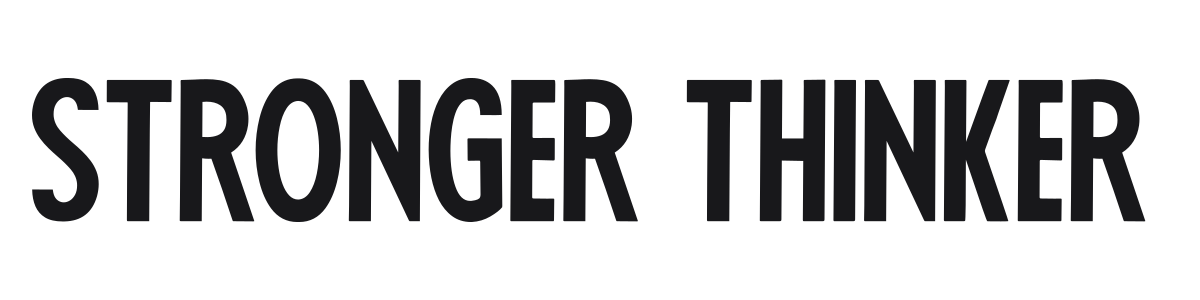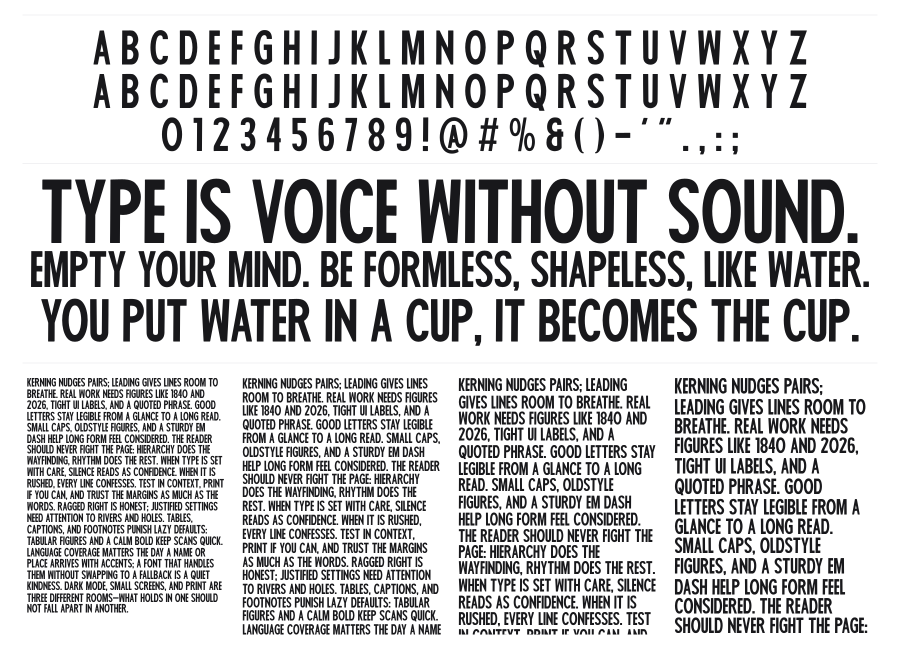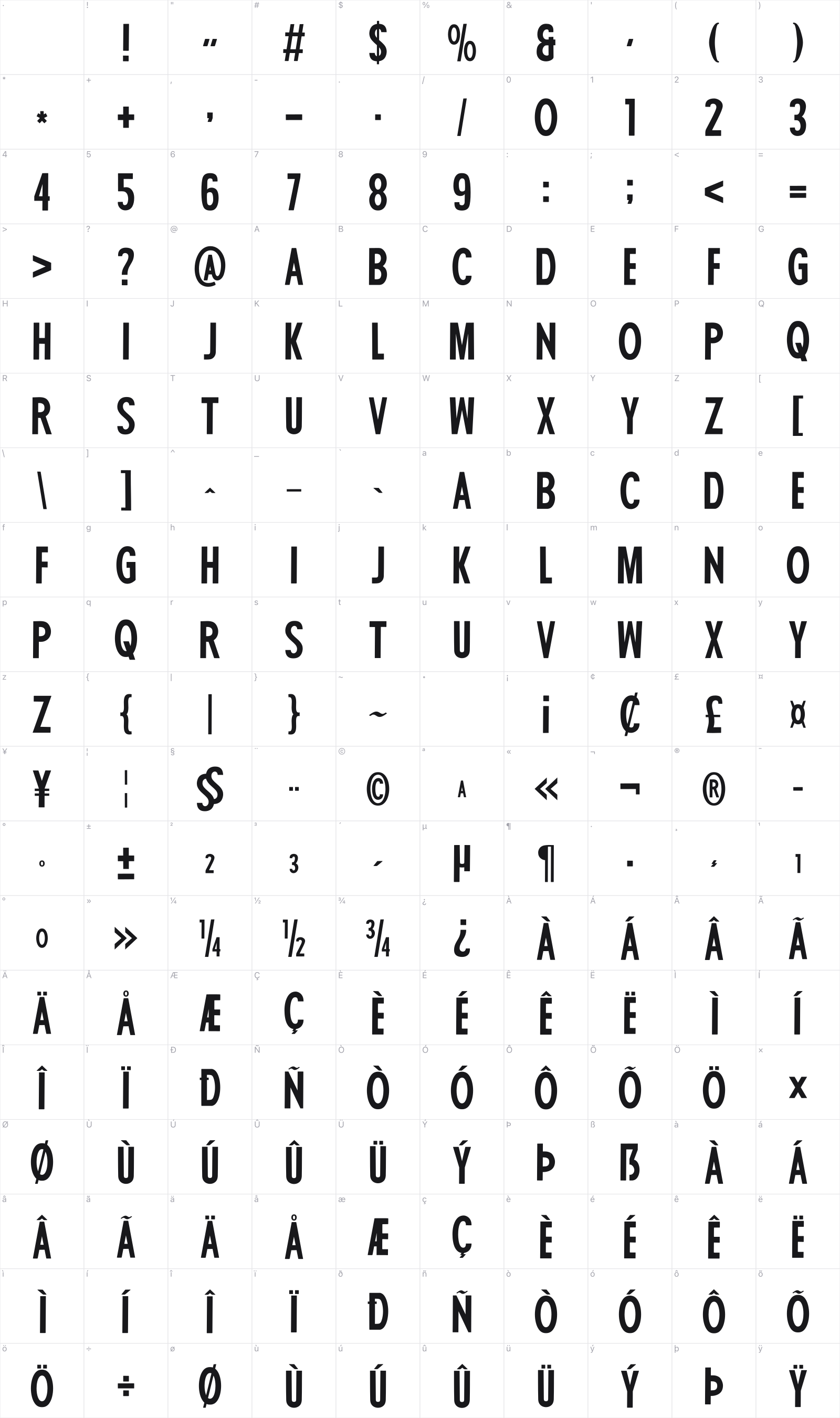
Stronger Thinker
Stronger Thinker is a heavily condensed bold grotesque sans with a dense, muscular presence. Its near-monoweight strokes, flat terminals, and extreme compression create maximum impact at large sizes. A natural choice for posters, sports branding, and editorial headlines that need to shout.